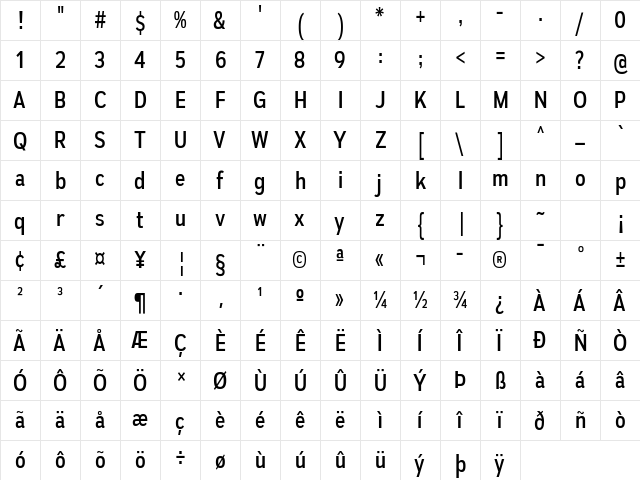
Autoradiographic Regular
Design Context for Autoradiographic Typeface
Autoradiographic is a composed and adaptable typeface that performs quietly and consistently across a wide range of design contexts.